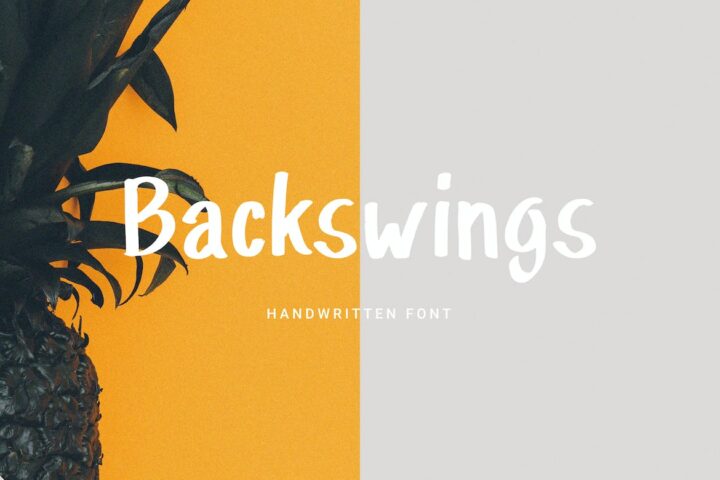
Backswings – Handwritten Display Font
Display font of handwriting. Very suitable if you are making designs such as merchandise, quotes, social media posts etc.
Feature: Uppercase, Lowercase, Numeral, Punctuation, Multilingual.